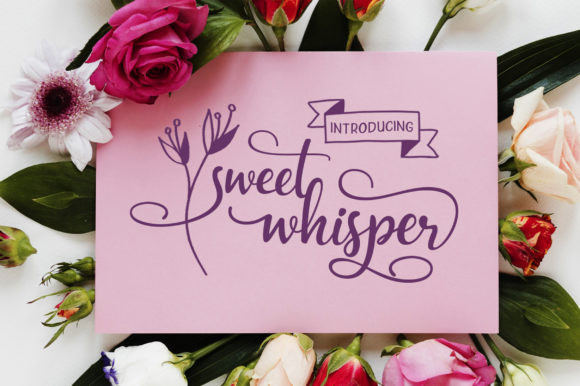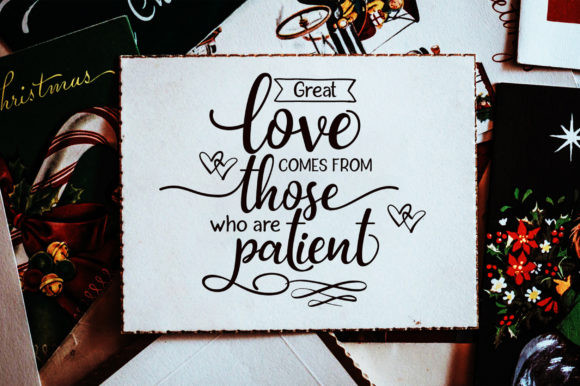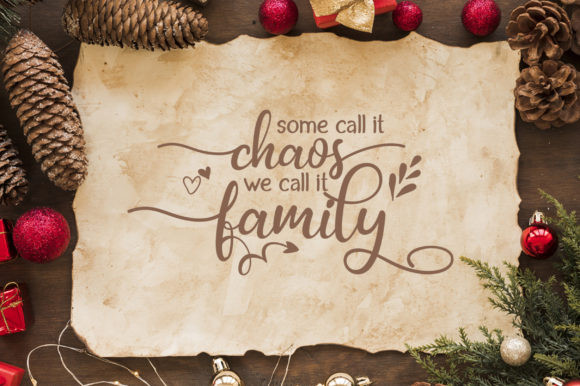
Sweet Whisper Font
Sweet Whisper is an all round duo font, elegant and flowing. Its distinct and well rounded letters make this font a masterpiece. It features a varying baseline, smooth lines, gorgeous glyphs and stunning alternates. Fall in love with this font and bring your projects to the highest levels!